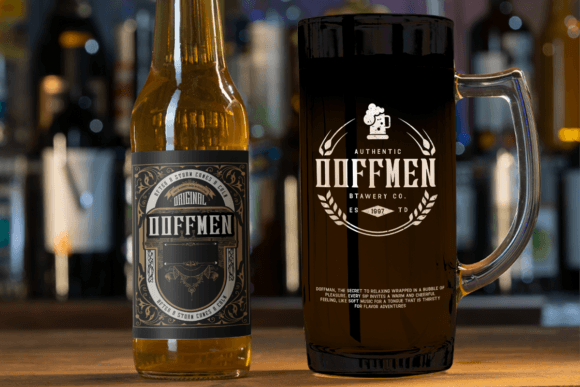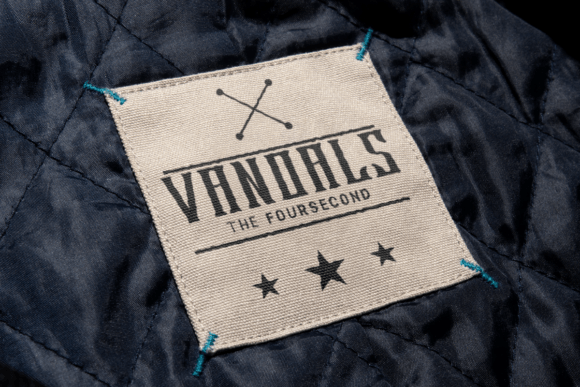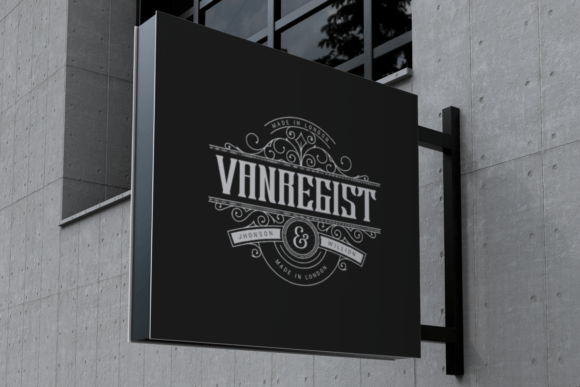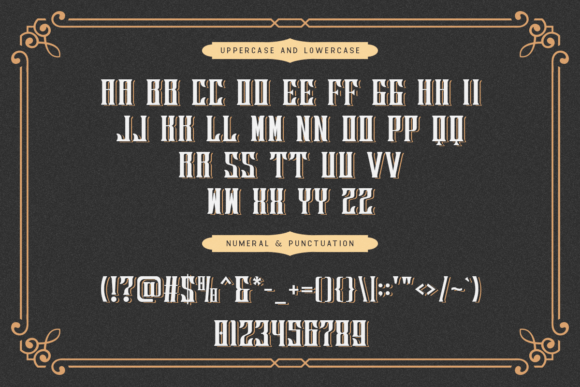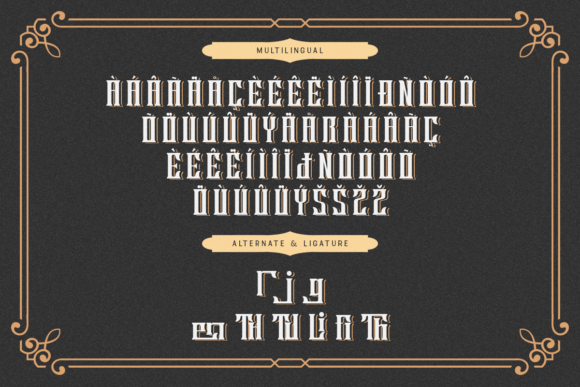
Borgenix Font: Elevate Your Designs with a Touch of Vintage Charm
In the world of typography, few fonts capture the essence of retro design as beautifully as Borgenix Vintage Font. This exquisitely crafted typeface is a treasure trove of nostalgia, bringing the classic style of bygone eras to your modern projects. Whether you’re a designer, crafter, or simply someone who appreciates the elegance of vintage aesthetics, Borgenix is sure to become your go-to font for adding a touch of timeless charm to your work.
The Allure of Borgenix Vintage Font
Borgenix Vintage Font is more than just a typeface – it’s an experience. With its intricate details and classic lines, this font instantly transports you to a world of yesteryear, evoking memories of vintage posters, classic logos, and timeless branding. The nostalgic appeal of Borgenix is undeniable, making it the perfect choice for projects that require a retro-inspired touch.
One of the standout features of Borgenix is its versatility. This font can be used for a wide range of applications, from creating eye-catching posters and logos to designing elegant packaging and branding materials. The beauty of Borgenix lies in its ability to adapt to different design contexts, always delivering a consistent and authentic vintage feel.
Key Features of Borgenix Vintage Font
- Intricate Details: The font boasts intricate details that give it a rich, textured look. These details are meticulously crafted to create a sense of depth and history, making your designs stand out with a unique character.
- Timeless Aesthetic: Borgenix has a timeless quality that ensures your designs will remain relevant for years to come. Unlike trendy fonts that quickly go out of style, Borgenix offers a classic appeal that transcends fleeting design fashions.
- Vintage Appeal: The font’s vintage appeal is one of its most compelling features. With Borgenix, you can instantly add a retro touch to your projects, making them more engaging and visually appealing.
Applications of Borgenix Vintage Font
Borgenix Vintage Font is incredibly versatile, making it suitable for a variety of design projects. Here are some of the most popular applications:
- Posters and Flyers: Create stunning posters and flyers with a retro twist. Borgenix’s bold and elegant lines make it perfect for headlines and titles that demand attention.
- Logos and Branding: Give your brand a vintage makeover with Borgenix. The font’s classic style and intricate details make it ideal for logos, packaging, and branding materials that require a touch of nostalgia.
- Packaging Design: Add a touch of elegance to your product packaging with Borgenix. The font’s timeless aesthetic ensures that your designs will stand out on store shelves.
- Digital and Print Media: Whether you’re working on digital projects or print materials, Borgenix Vintage Font is a great choice. Its versatility and charm make it suitable for a wide range of media, from social media graphics to business cards.
Tips for Using Borgenix Vintage Font
To get the most out of Borgenix Vintage Font, here are some tips to keep in mind:
- Pair with Modern Fonts: Combine Borgenix with modern fonts to create a striking contrast. This approach can add depth and interest to your designs.
- Experiment with Colors: Don’t be afraid to experiment with different colors. Borgenix looks great in bold, vibrant colors as well as muted, pastel shades.
- Use Swashes and Glyphs: Take advantage of Borgenix’s PUA encoding to access the font’s swashes and glyphs. These elements can add a decorative touch to your designs.
- Keep it Simple: While Borgenix is a detailed font, it’s essential not to overcomplicate your designs. Keep your layout clean and simple to let the font shine.
Borgenix Vintage Font is a beautifully crafted typeface that brings the charm of retro design to your projects. With its nostalgic appeal, classic style, and intricate details, this font is perfect for designers and crafters looking to add a touch of vintage elegance to their work. Whether you’re creating posters, logos, packaging, or branding materials, Borgenix delivers a perfect blend of style and history. Its PUA encoding makes it easy to use, and its versatility ensures that it will become a staple in your design toolkit.